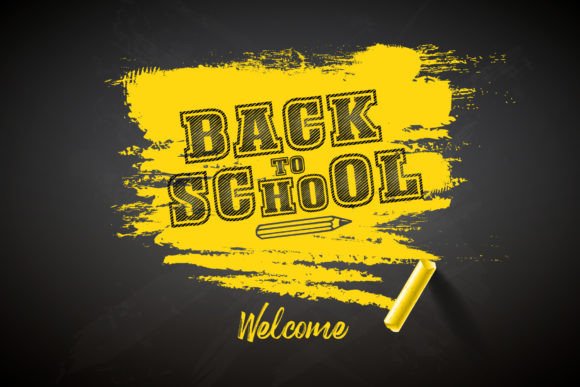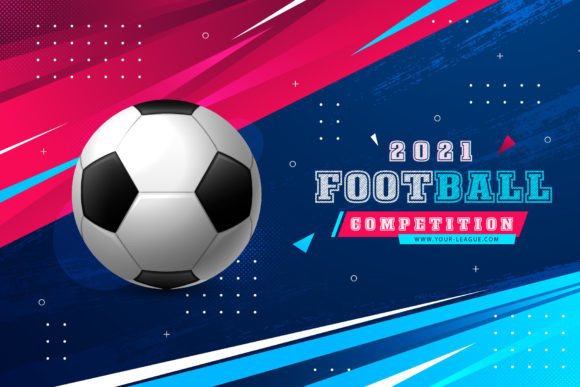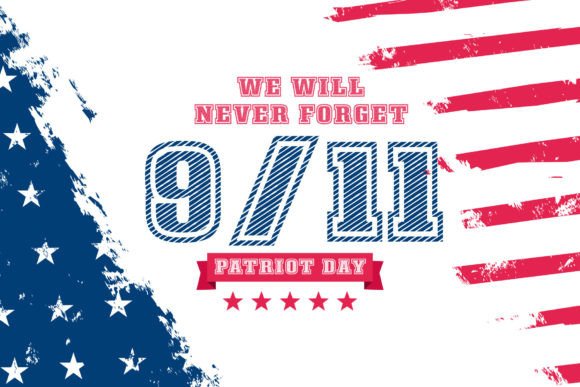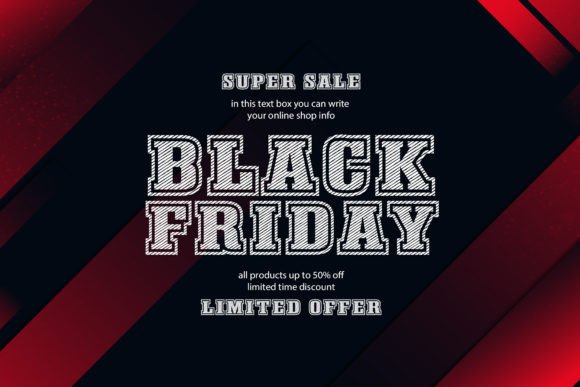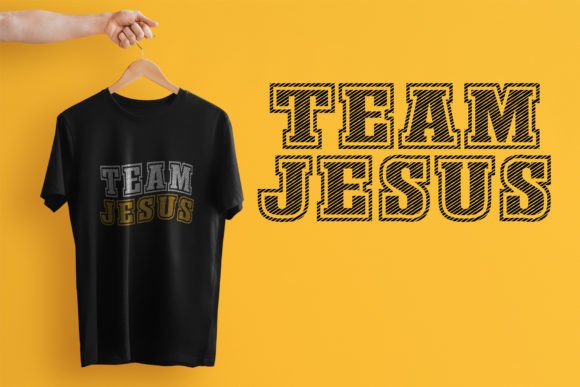
The Ultimate Guide to Denim Font: Elevate Your Designs with a Cool and Fun Twist
I’ll never forget the time I was working on a project for a client’s birthday party invitation. I had the design all laid out, but something was missing – the perfect font. I scrolled through my font library, but nothing seemed quite right. That’s when I stumbled upon Denim Font. It was love at first sight! 💕 The fun, cool, and playful vibe of this decorative font instantly captured the essence of the party, and I knew I had found the perfect fit.
An Honest Review of Denim Font
So, what makes Denim Font so special? Let’s dive into the good stuff and a few quirks to keep in mind.
- ✅ Unique and eye-catching design that adds a fun twist to any project
- ✅ Perfect for a wide range of applications, from blog posts and logos to invitations and decorations
- ✅ Easy to read and understand, even in smaller font sizes
- ✅ Highly versatile and can be used for both personal and professional projects
- ⚠️ May not be suitable for very formal or professional projects, as it has a more playful tone
- ⚠️ Some users may find the font a bit too distressed or rough for their taste
Exploring OpenType Features, Glyphs, and Stylistic Alternates
One of the best things about Denim Font is its range of OpenType features, glyphs, and stylistic alternates. These features allow you to customize the font to suit your design needs.
- OpenType features: These include ligatures, stylistic sets, and swashes that can add more variety to your text
- Glyphs: These are alternative characters that can be used to add more personality to your text
- Stylistic alternates: These are alternative font styles that can be used to create a different look or feel
The Backstory of Denim Font
Denim Font was designed with one goal in mind: to capture the fun, cool vibe of denim fabric. The designer wanted to create a font that would add a playful touch to any project, from casual blog posts to party invitations. With its unique, distressed design, Denim Font is sure to become a favorite in your font library.
| What is Denim Font best used for? | Denim Font is perfect for a wide range of applications, from blog posts and logos to invitations and decorations. |
| Is Denim Font easy to read? | Yes, Denim Font is designed to be easy to read and understand, even in smaller font sizes. |
| Does Denim Font come with OpenType features? | Yes, Denim Font includes a range of OpenType features, glyphs, and stylistic alternates to help you customize your design. |
In conclusion, Denim Font is a versatile and fun font that can add a cool touch to any project. With its unique design, ease of use, and range of OpenType features, it’s sure to become a favorite in your font library. So why not give it a try and see how it can elevate your designs? 🚀